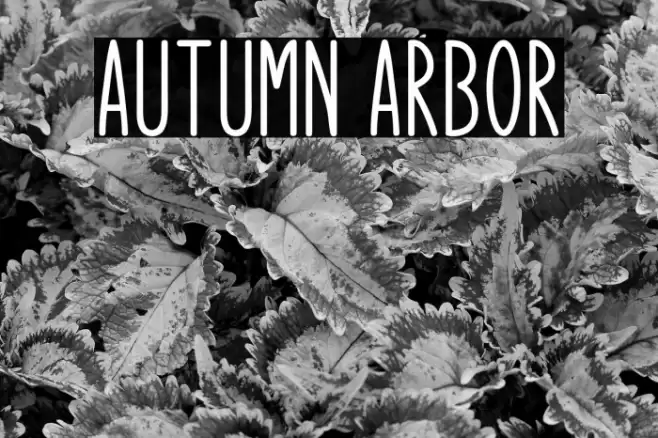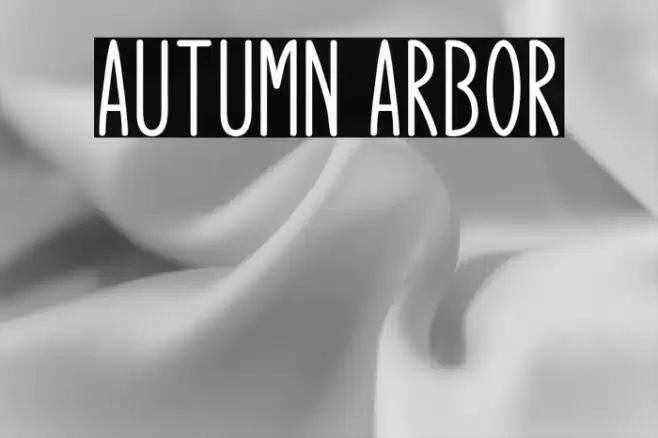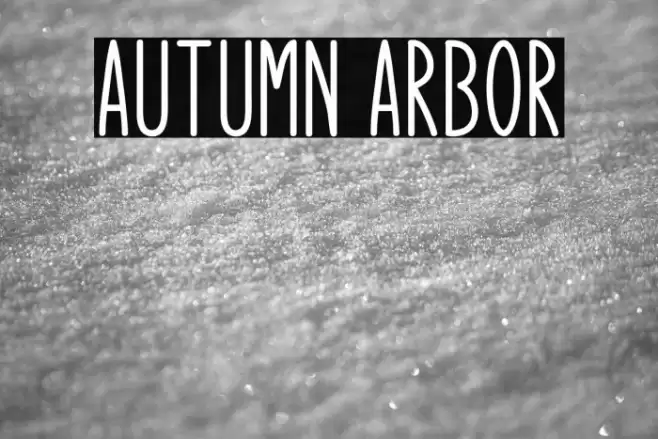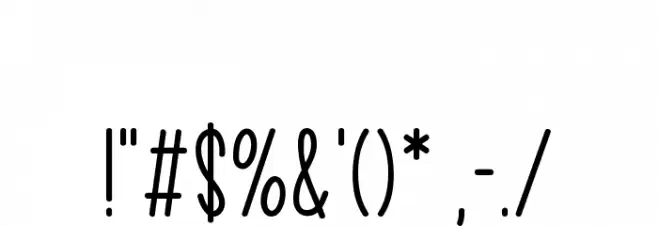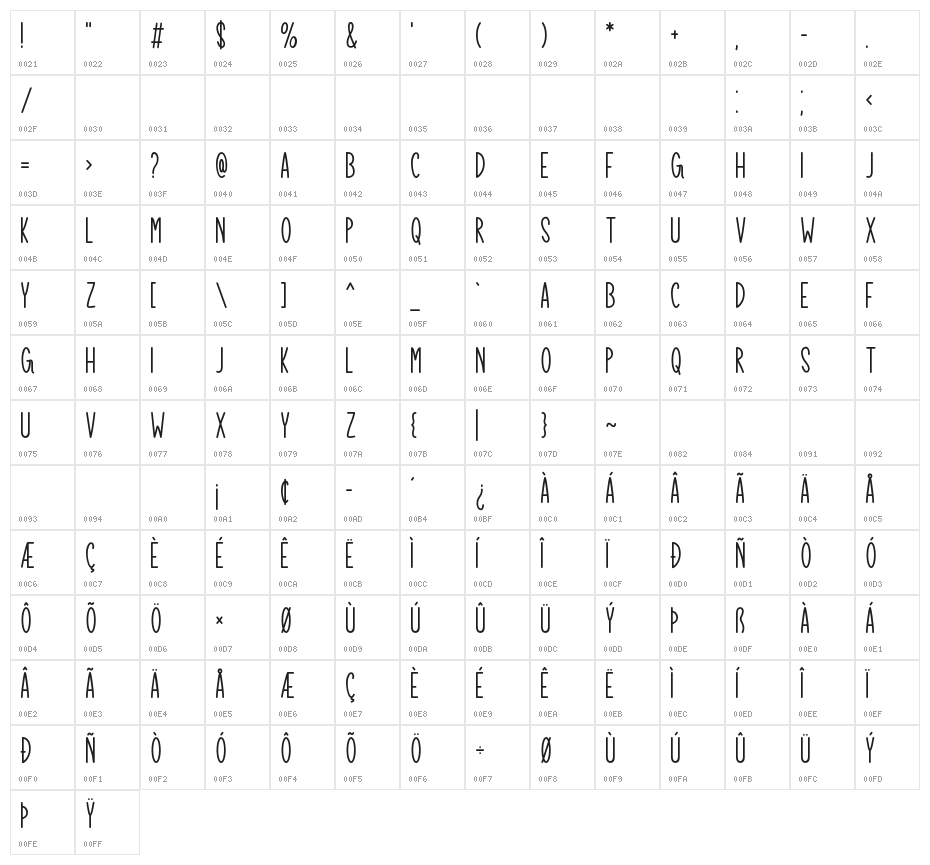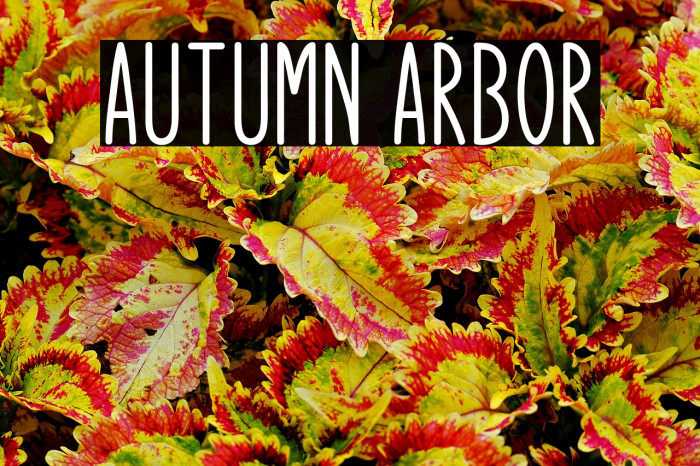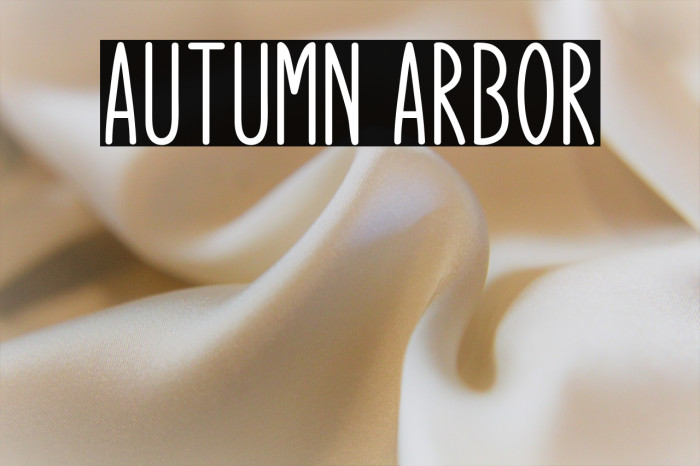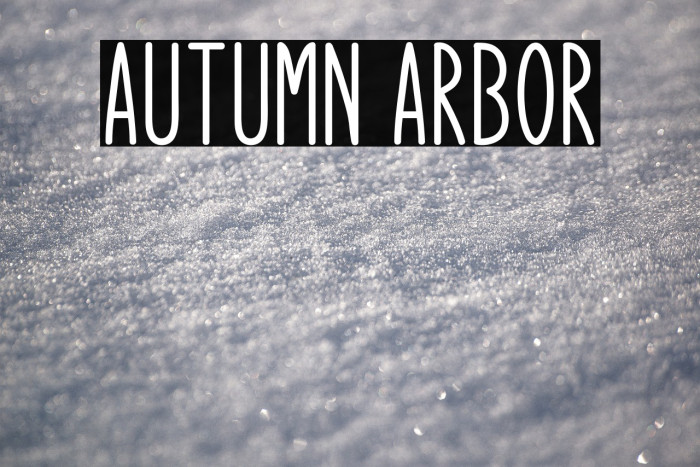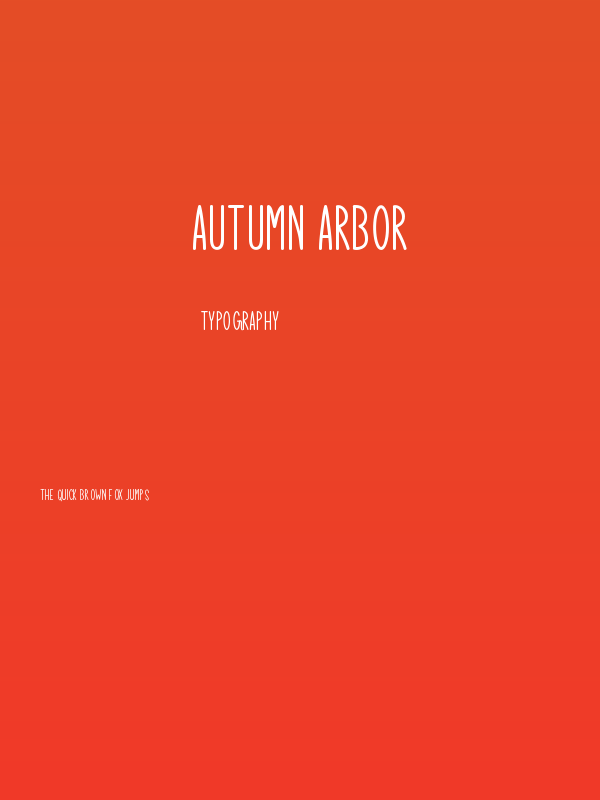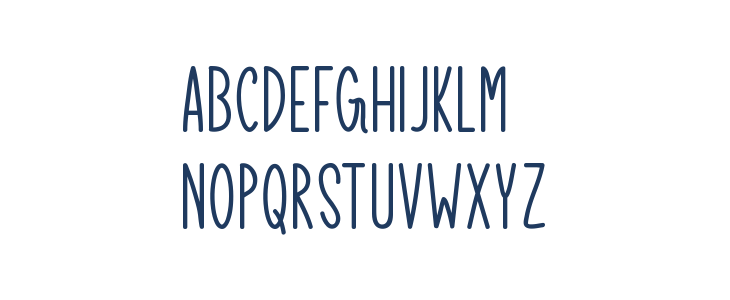
Autumn Arbor Font
Autumn Arbor Description
This font features a playful and whimsical style with tall, narrow letters. The strokes are consistent in width, giving it a clean and modern appearance. The characters have a slightly rounded finish, adding a friendly and approachable feel. The uppercase and lowercase letters maintain a uniform height, contributing to its neat and orderly look. The special characters are designed to match the overall aesthetic, ensuring cohesion across all elements. This font is versatile and can be used in various design projects that require a touch of personality and charm.
A playful, narrow font with consistent strokes and a modern, friendly style from Regular fonts.
- Proposed Projects: Ideal for children's books, playful branding, greeting cards, and creative posters.